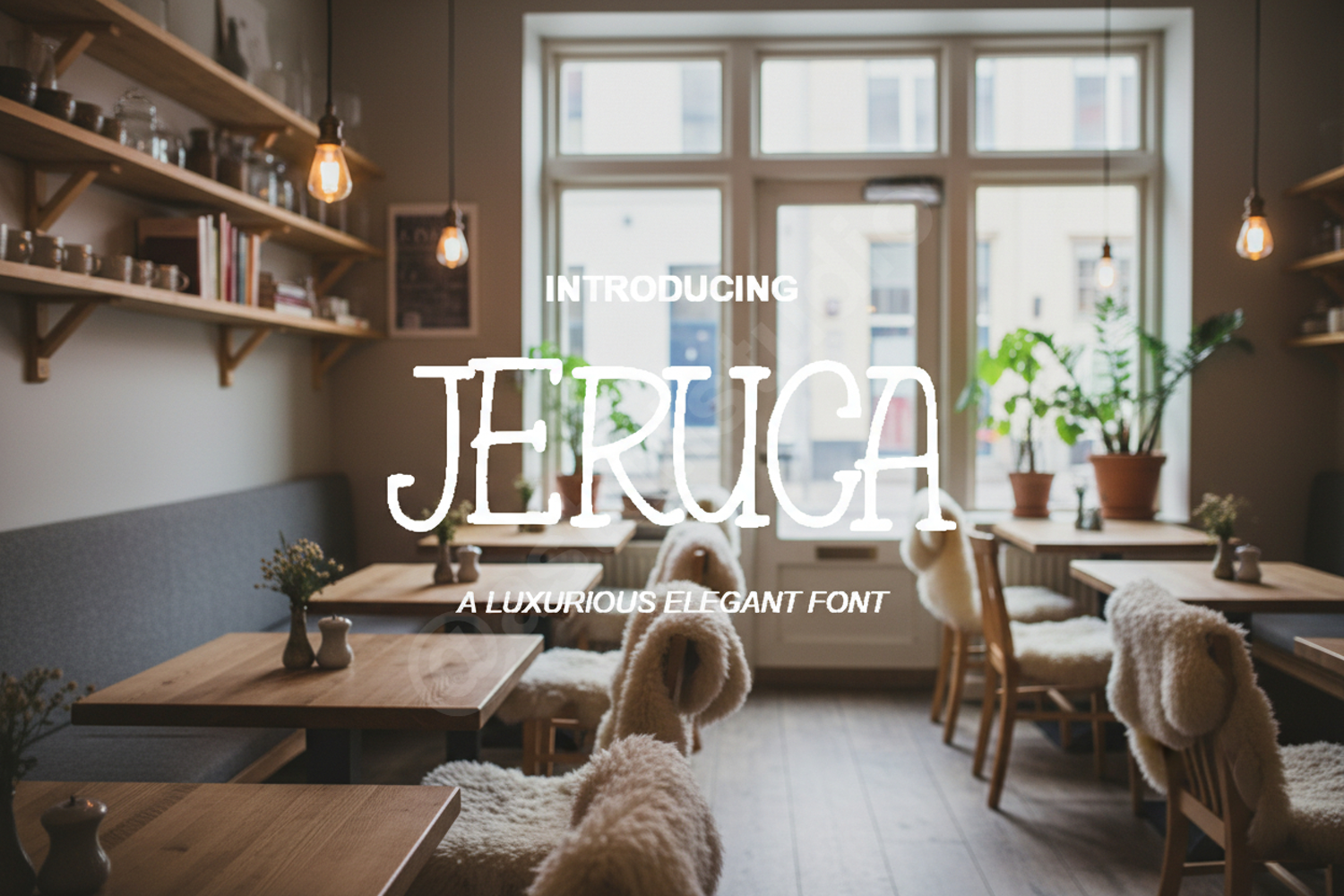
Jeruca - Elegant Modern Serif Display Font
Jeruca
Jeruca is a premium modern serif font that exudes sophistication and timeless elegance. Carefully crafted with balanced proportions and sharp terminals, this typeface is designed to elevate your creative projects to a professional level. Whether you are working on a high-fashion brand or a minimalist layout, Jeruca provides the perfect touch of class and legibility.
- Luxury Branding and Identity: Create a memorable and high-end brand presence.
- Wedding Invitations: Add a touch of grace to stationery and event decor.
- Editorial Layouts: Perfect for magazine headers and sophisticated book covers.
- Social Media: Elevate your digital content with professional typography.
- Logo Design: Craft unique and timeless wordmarks for various industries.